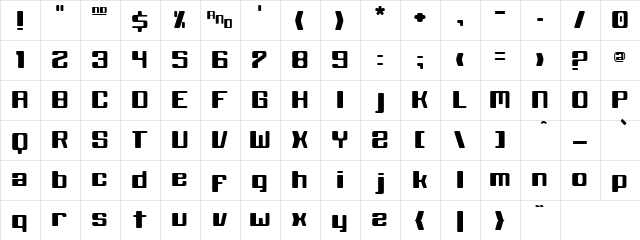
Poloy maldinie ll Regular
Design Context for Poloy maldinie ll Typeface
Poloy maldinie ll offers clean, dependable letterforms without strong stylistic allegiance, making it a practical choice for designers who need flexibility.